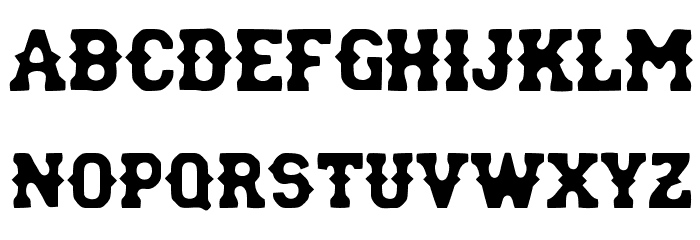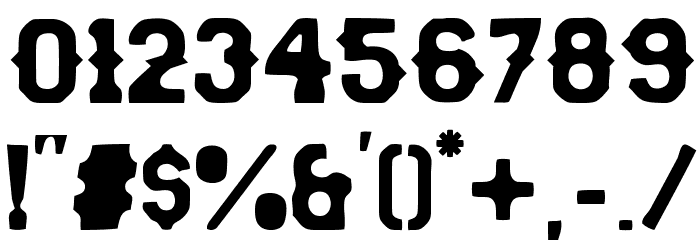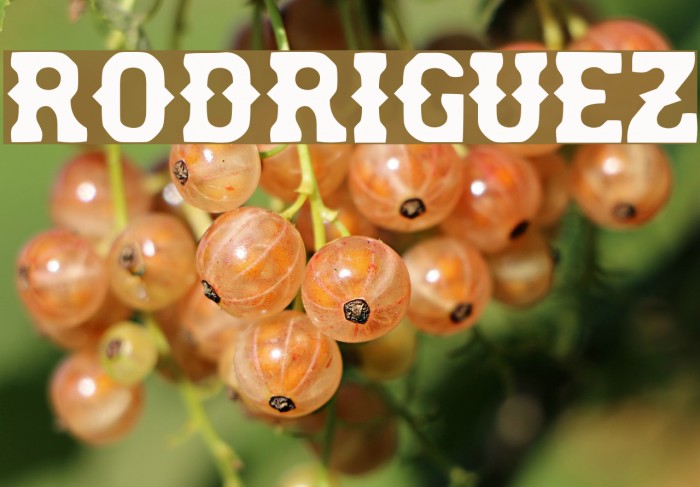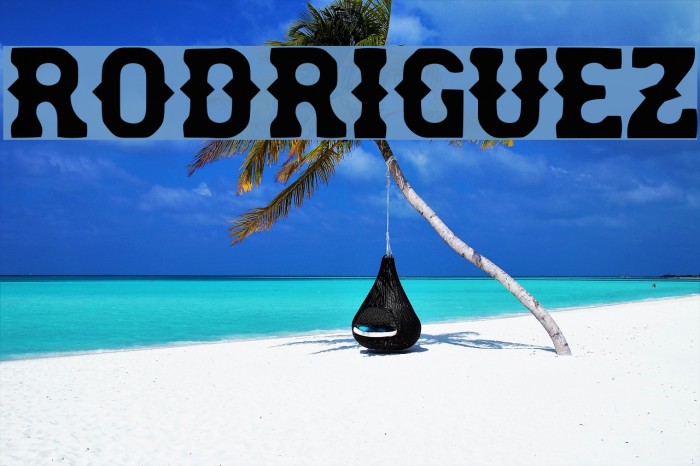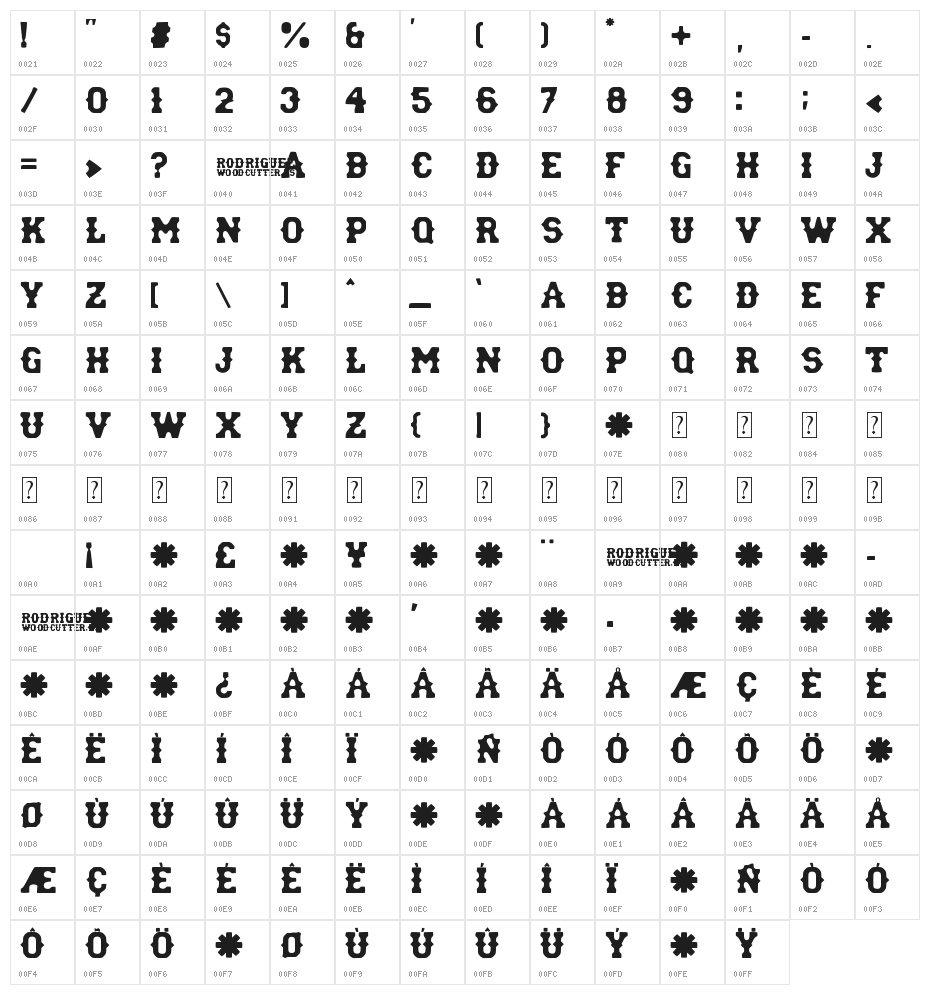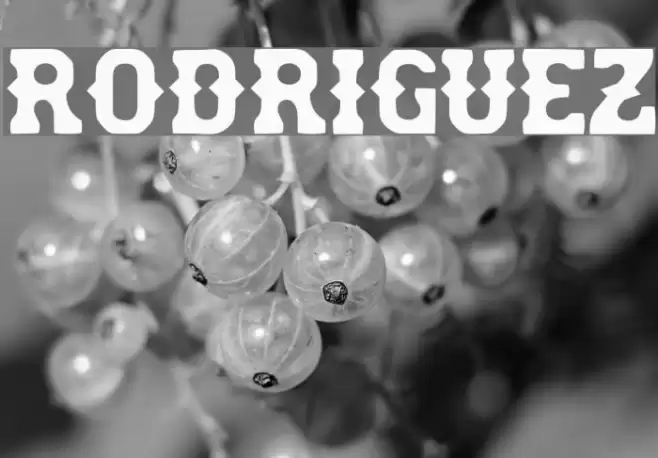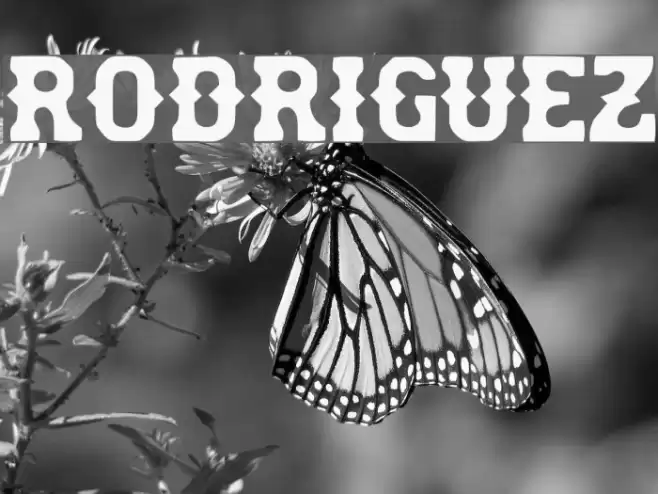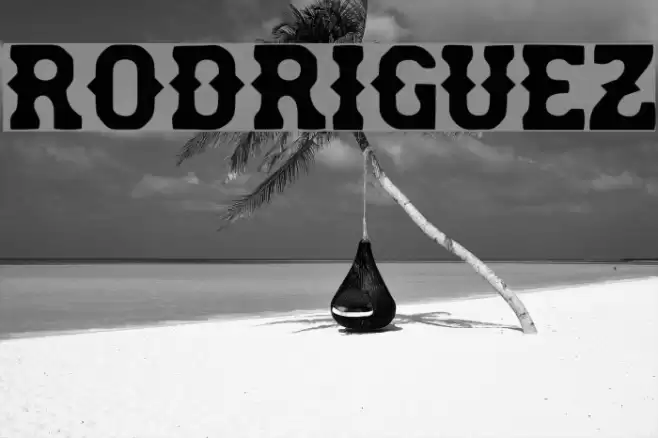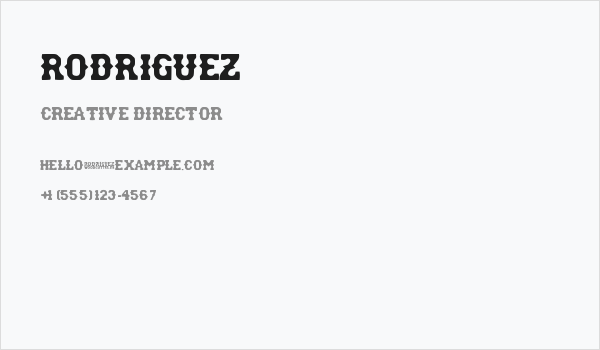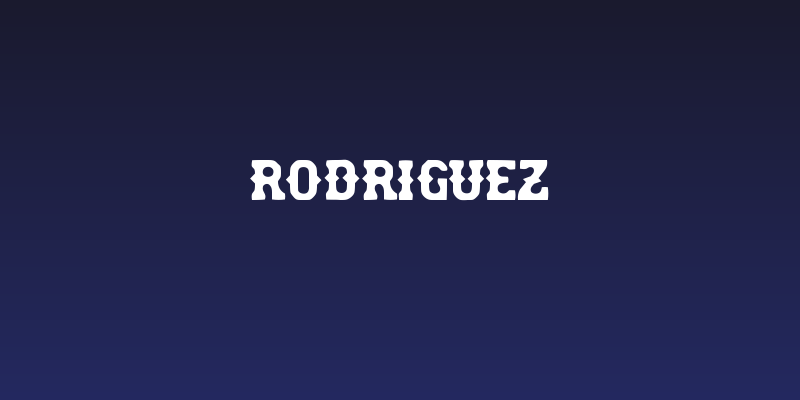
rodriguez Font
This font features a bold and robust design with a distinctly Western or vintage flair. The characters are heavily weighted with thick strokes and unique cut-out details that give them a rugged, almost industrial appearance. The uppercase letters are particularly striking, with sharp angles and a strong presence. The numbers and special characters maintain this bold style, ensuring consistency across all glyphs. This font is ideal for creating eye-catching headlines or logos that require a strong, memorable impact.
A bold, vintage-style font with thick strokes and unique cut-out details.
- Font: rodriguez
- Proposed Projects: Perfect for Western-themed designs, vintage posters, logos, and branding materials that require a strong, bold presence.
- Overall Style: Vintage